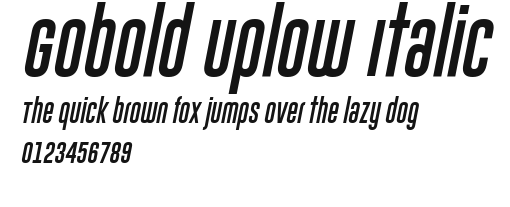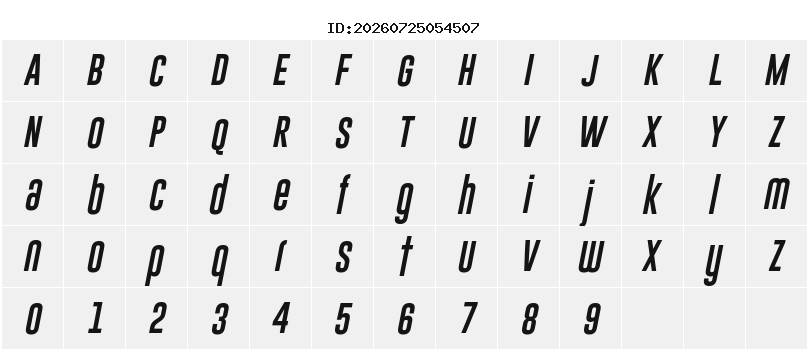
Gobold Uplow Italic Preview
• Font Name: Gobold Uplow Italic
• Font Style: Italique
• Full Font Name: Gobold Uplow Italic Italic
• Version: Version 1.00 February 19, 2014, initial release
• Character Count: 242
• Designer: Situjuh Nazara
About Gobold Uplow Italic.ttf
Gobold Uplow Italic.ttf is a modern, elegant sans-serif font designed for ultimate readability and visual harmony. Perfect for branding, headlines, web design, and print materials.